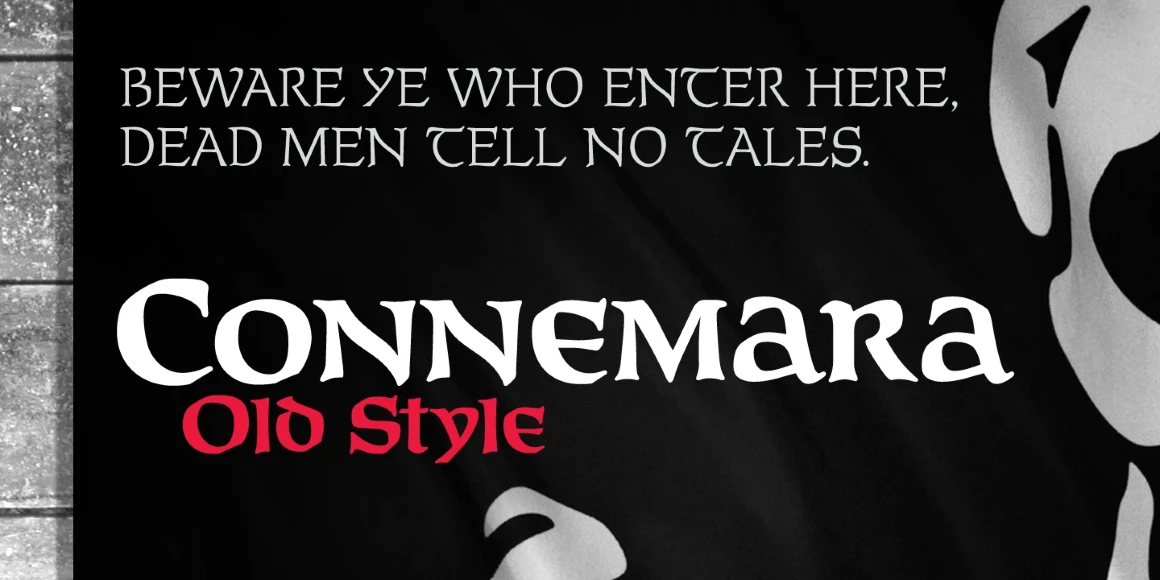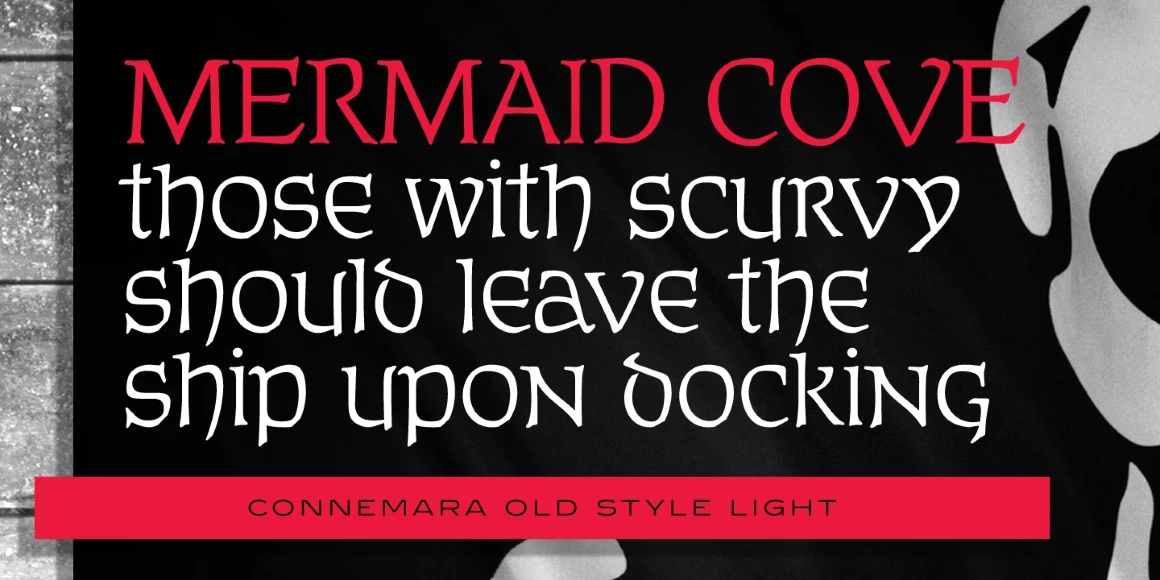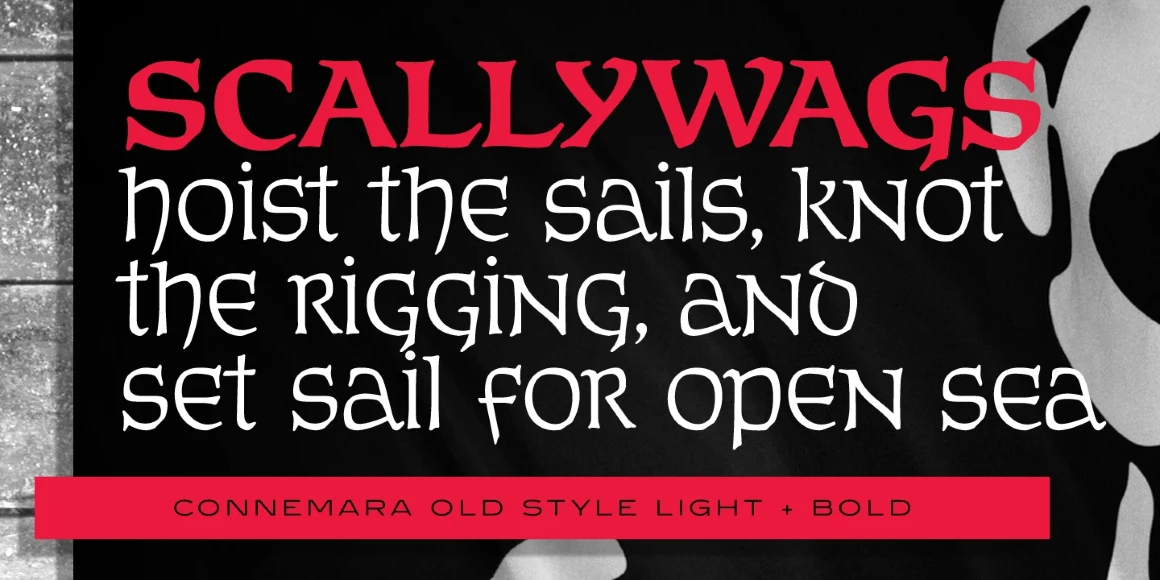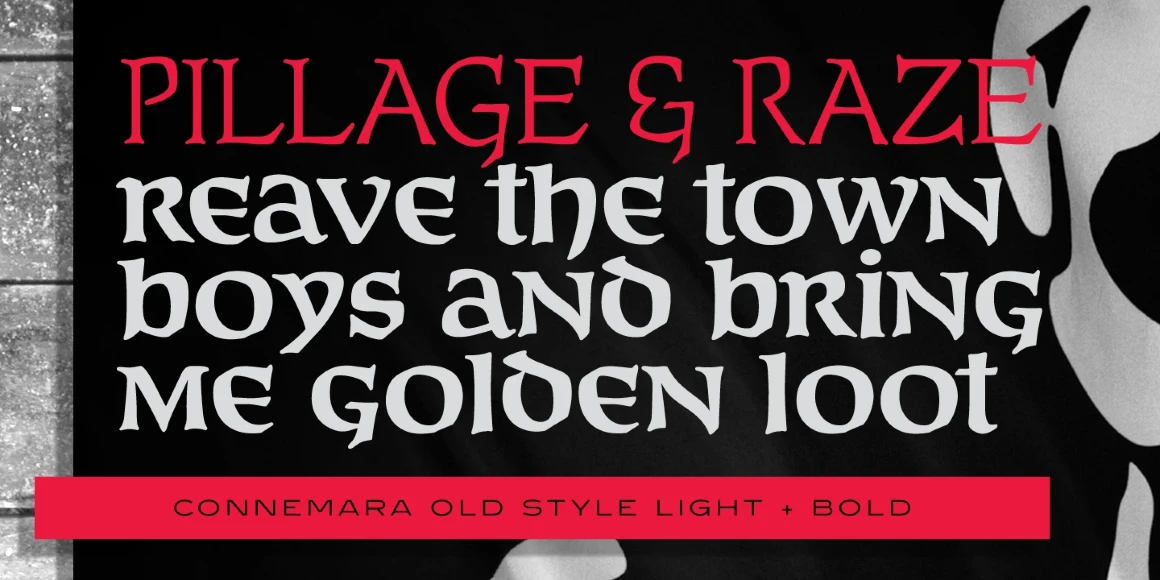
Connemara Old Style
Connemara Old Style is an uncial typeface embodying a distinct Celtic charm. Drawing inspiration from traditional Irish script styles with broad, rounded, calligraphic shapes, it is perfect for mimicking something written with a quill on parchment or vellum. This all-caps design is well-suited for giving a historical or decorative look to projects such as festivals or fairs, museum exhibits, fantasy novels, archeological magazines, craft beer labels, artisanal food packaging, and handmade goods.